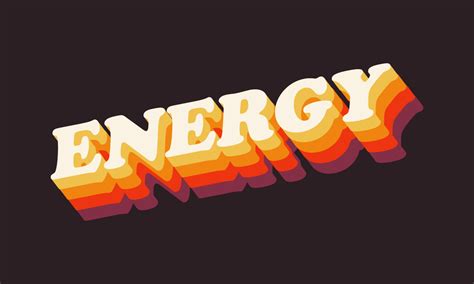
Cooper Black Font: The Ultimate Guide To Using It Right
Cooper Black Font: The Ultimate Guide to Using It Right
Hey guys! Ever stumbled upon a font that just screams retro cool ? Chances are, you’ve met Cooper Black. This font is more than just letters; it’s a statement. A bold, bubbly statement that has been making its mark since the early 1920s. Let’s dive deep into what makes Cooper Black so special, how to use it effectively, and why it remains a design favorite even today.
What is Cooper Black Font?
Cooper Black is a typeface designed by Oswald Bruce Cooper in 1921 and released by the Barnhart Brothers & Spindler type foundry in 1922. What sets it apart? Its incredibly heavy, rounded serifs and the overall soft, friendly appearance. Imagine the visual equivalent of a warm hug – that’s Cooper Black. Its letters are almost cartoonishly thick, making it incredibly legible even at a distance, and giving it a unique presence that’s hard to ignore. This font wasn’t just another addition to the typography world; it was a revolution in making type more approachable and less austere.
Cooper Black quickly gained popularity because it was so different from the more formal and serious fonts of the time. Its inviting and playful nature made it perfect for advertising, posters, and packaging . Think about the roaring twenties – a time of exuberance and change. Cooper Black mirrored that spirit perfectly. It was used to promote everything from cars to candy, becoming synonymous with a sense of fun and modernity. The font’s success also paved the way for other, similar typefaces that embraced warmth and approachability, influencing design trends for decades to come. So, next time you see Cooper Black, remember it’s not just a font; it’s a piece of design history!
The History and Evolution of Cooper Black
The history of Cooper Black is a fascinating journey through the evolution of typography and design. To really understand its impact, we need to rewind to the early 20th century. Oswald Bruce Cooper, the font’s creator, was a prominent figure in the Chicago advertising scene. He envisioned a typeface that was both bold and approachable, something that would stand out in a crowded marketplace. His creation was initially met with some skepticism, as its round, heavy forms were a departure from the more traditional, serious fonts of the time. However, Cooper’s vision paid off, and Cooper Black quickly became a hit.
Released in 1922, Cooper Black was an instant success, embraced by advertisers and designers alike. Its unique aesthetic made it perfect for catching the eye, and its legibility ensured that the message was clear. Over the years, Cooper Black has seen numerous adaptations and revivals . From its initial metal type form to its digital versions, the font has been tweaked and refined to meet the needs of modern design. Different weights and styles have been added, expanding its versatility and ensuring its continued relevance. It’s a testament to Cooper’s original design that the font has remained so popular and recognizable for over a century. The story of Cooper Black is a reminder that great design can transcend time, continuing to inspire and influence new generations of creatives.
Key Characteristics of Cooper Black Font
When you look at Cooper Black, several characteristics jump out immediately . First and foremost, it’s bold . Like, really bold. The heavy strokes give it a strong presence that commands attention. Then there are the rounded serifs. Unlike the sharp, angular serifs of more traditional fonts, Cooper Black’s serifs are soft and curved, contributing to its friendly and approachable feel. The letterforms themselves are wide and slightly compressed, adding to the font’s unique personality. This combination of boldness and roundness makes Cooper Black incredibly legible, even at small sizes, and gives it a distinctive look that’s hard to mistake.
Another key feature is its high x-height , which refers to the height of the lowercase letters relative to the uppercase letters. This contributes to the font’s overall readability and makes it appear larger and more prominent. The spacing between letters is also carefully considered, ensuring that the font remains clear and easy to read, even with its heavy weight. Cooper Black’s unique blend of boldness, roundness, and careful attention to detail is what makes it such a distinctive and enduring typeface. These characteristics not only define its visual appeal but also contribute to its functionality, making it a versatile choice for a wide range of design applications. Whether you’re creating a poster, designing a logo, or crafting a headline, Cooper Black’s unique features can help your message stand out.
How to Use Cooper Black Effectively
So, you’re thinking of using Cooper Black in your next project? Awesome! But before you go all out, let’s talk about how to use it effectively. First off, Cooper Black is a display font, meaning it’s best used for headlines, logos, and other short bursts of text . It’s not really suited for long paragraphs or body copy, as its heavy weight can become tiring on the eyes. Think of it as the star of the show, not the supporting cast. When using Cooper Black, consider the context. It works particularly well in designs that aim for a retro, vintage, or playful feel. It’s a natural fit for advertising, branding, and packaging that wants to evoke a sense of nostalgia or fun. But that doesn’t mean it can’t be used in more modern contexts. When paired with clean, minimalist designs, Cooper Black can add a touch of whimsy and personality without feeling out of place.
Another tip is to use Cooper Black sparingly . A little goes a long way. Overusing it can make your design feel overwhelming and cluttered. Instead, focus on using it for key elements that you want to stand out. Experiment with different sizes and weights to see what works best for your project. And don’t be afraid to pair it with other fonts. A classic combination is Cooper Black for the headline and a simple sans-serif font for the body copy. This creates a nice contrast and ensures that your design remains balanced and readable. With a little creativity and attention to detail, you can harness the power of Cooper Black to create designs that are both eye-catching and effective. Remember, it’s all about finding the right balance and using the font in a way that complements your overall design aesthetic.
Cooper Black in Modern Design
Believe it or not, Cooper Black is still very much alive and kicking in the world of modern design . Despite being around for over a century, it continues to pop up in various projects, from branding and advertising to web design and social media. One of the reasons for its enduring appeal is its versatility. While it’s often associated with retro and vintage styles, it can also be used in more contemporary designs to add a touch of personality and warmth. In a world where many brands are striving to stand out, Cooper Black offers a unique and recognizable voice.
You’ll often see Cooper Black used in logos and branding for businesses that want to convey a sense of fun, nostalgia, or authenticity. It’s a popular choice for food brands, clothing companies, and creative agencies. But it’s not just limited to these industries. Cooper Black can also be used effectively in web design to create eye-catching headlines and calls to action. Its bold presence ensures that key messages are noticed, and its friendly appearance can help to create a more welcoming and engaging user experience. On social media, Cooper Black can be used to add personality to graphics and videos, helping brands to stand out in a crowded online landscape. Whether you’re creating a meme, designing an Instagram post, or crafting a YouTube thumbnail, Cooper Black can help you to capture attention and communicate your message effectively. The key is to use it strategically and in a way that complements your overall brand identity. When used well, Cooper Black can be a powerful tool for creating memorable and impactful designs.
Cooper Black Font Combinations
Choosing the right font to pair with Cooper Black can make or break your design . Because Cooper Black is so distinctive, it’s important to choose a font that complements it without competing for attention. A classic approach is to pair Cooper Black with a clean, simple sans-serif font. Think along the lines of Helvetica, Arial, or Open Sans. These fonts provide a nice contrast to Cooper Black’s rounded serifs and heavy weight, creating a balanced and readable design. The sans-serif font can be used for body copy, captions, and other supporting text, allowing Cooper Black to take center stage in headlines and logos.
Another option is to pair Cooper Black with a more modern and geometric sans-serif font , such as Futura or Montserrat. These fonts have a similar boldness to Cooper Black but with a more streamlined and contemporary feel. This combination can work well in designs that want to blend retro and modern aesthetics. If you’re feeling adventurous, you could also try pairing Cooper Black with a script font. However, this can be tricky, as it’s easy for the design to become cluttered and overwhelming. If you go this route, make sure to choose a script font that is clean and legible, and use it sparingly. Ultimately, the best font combination will depend on the specific project and the overall design aesthetic. Experiment with different pairings to see what works best, and don’t be afraid to break the rules. The most important thing is to create a design that is both visually appealing and easy to read.
Alternatives to Cooper Black Font
While Cooper Black is a classic choice, there are times when you might want to consider alternatives . Maybe you’re looking for something a bit more modern, or perhaps you need a font that’s easier to read at smaller sizes. Whatever the reason, there are plenty of great alternatives to Cooper Black that can help you achieve a similar look and feel. One popular alternative is ITC Benguiat. This font has a similar roundedness and warmth to Cooper Black but with a slightly more refined and elegant appearance. It’s a great choice for designs that want to evoke a sense of nostalgia without feeling too retro.
Another option is Bubblegum Sans. As the name suggests, this font is playful and bubbly, with rounded letterforms and a friendly vibe. It’s a good choice for designs that want to convey a sense of fun and whimsy. If you’re looking for something a bit more modern, consider Luckiest Guy. This font has a similar boldness to Cooper Black but with a more geometric and streamlined appearance. It’s a great choice for designs that want to blend retro and contemporary aesthetics. And if you need a font that’s highly legible at small sizes, check out Montserrat. While it doesn’t have the same roundedness as Cooper Black, it’s a clean and versatile sans-serif font that works well in a variety of contexts. Ultimately, the best alternative to Cooper Black will depend on the specific project and your overall design goals. Experiment with different fonts to see what works best, and don’t be afraid to try something new. The world of typography is vast and full of exciting possibilities.
Cooper Black is more than just a font; it’s a design icon . Its bold, rounded letterforms have made it a favorite for decades, and it continues to be used in a wide range of projects today. Whether you’re creating a logo, designing a poster, or crafting a headline, Cooper Black can help you to capture attention and communicate your message effectively. While it’s not always the right choice for every project, when used well, it can add a touch of personality and warmth to your designs.
So, the next time you’re looking for a font that’s both eye-catching and approachable, give Cooper Black a try. Experiment with different combinations and see how it can elevate your designs. And remember, the world of typography is always evolving, so don’t be afraid to explore new fonts and techniques. With a little creativity and attention to detail, you can create designs that are both beautiful and effective. Happy designing!